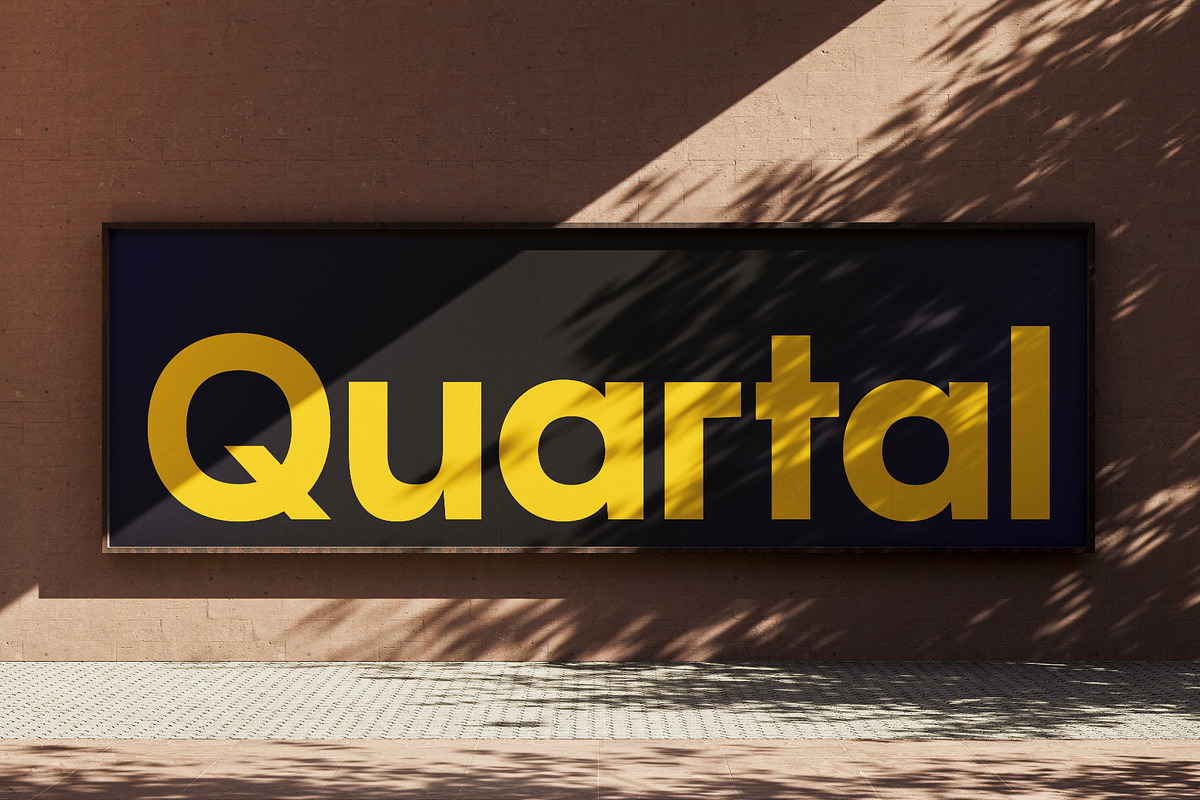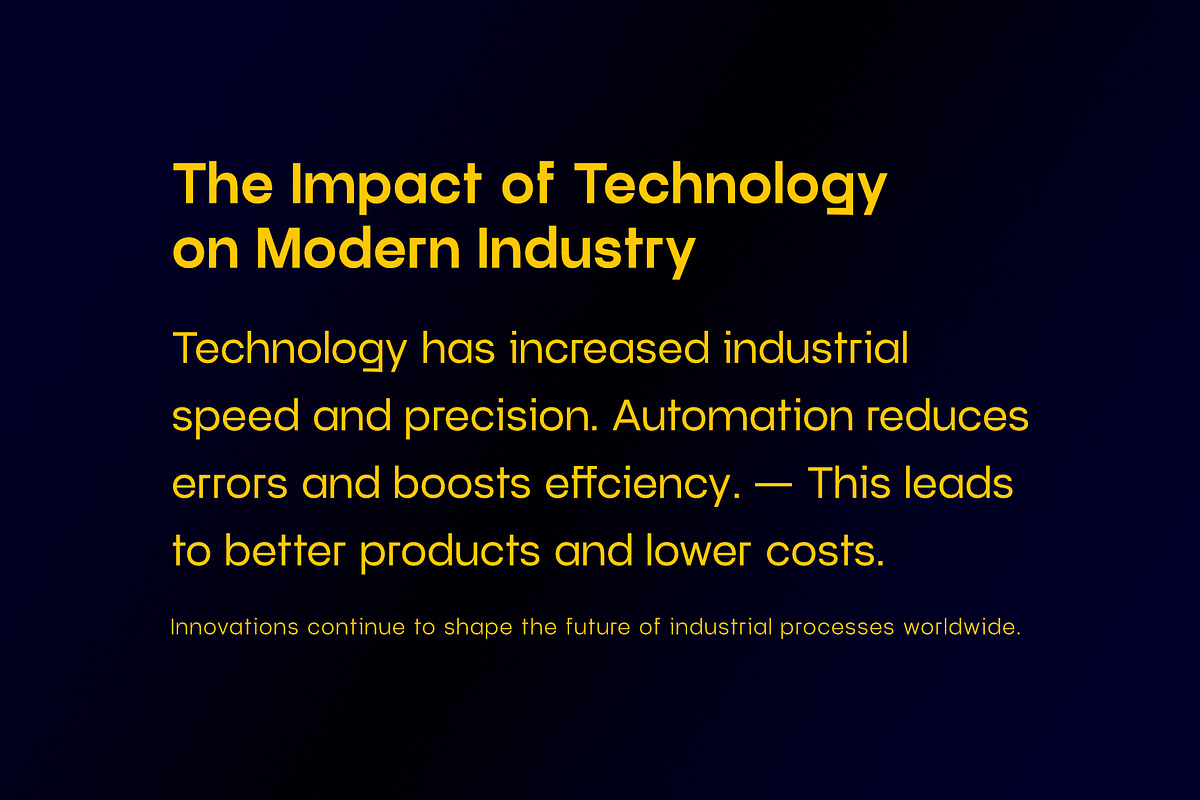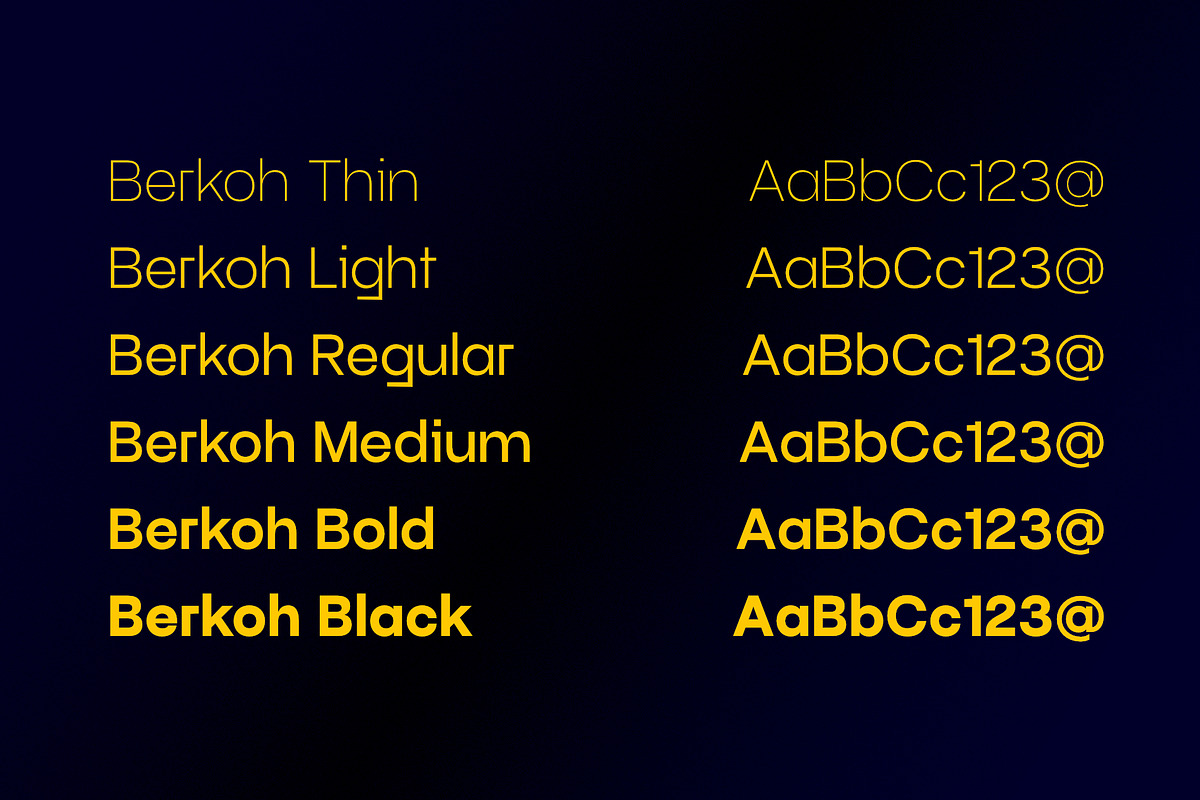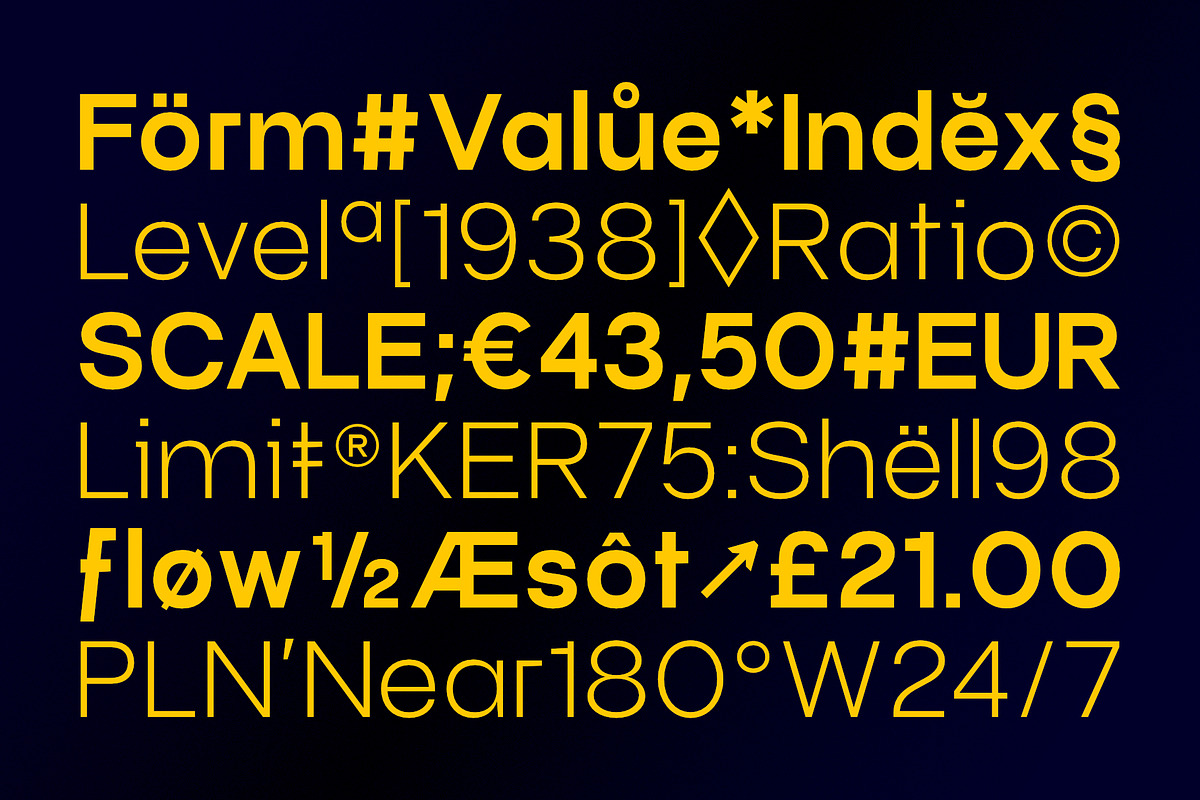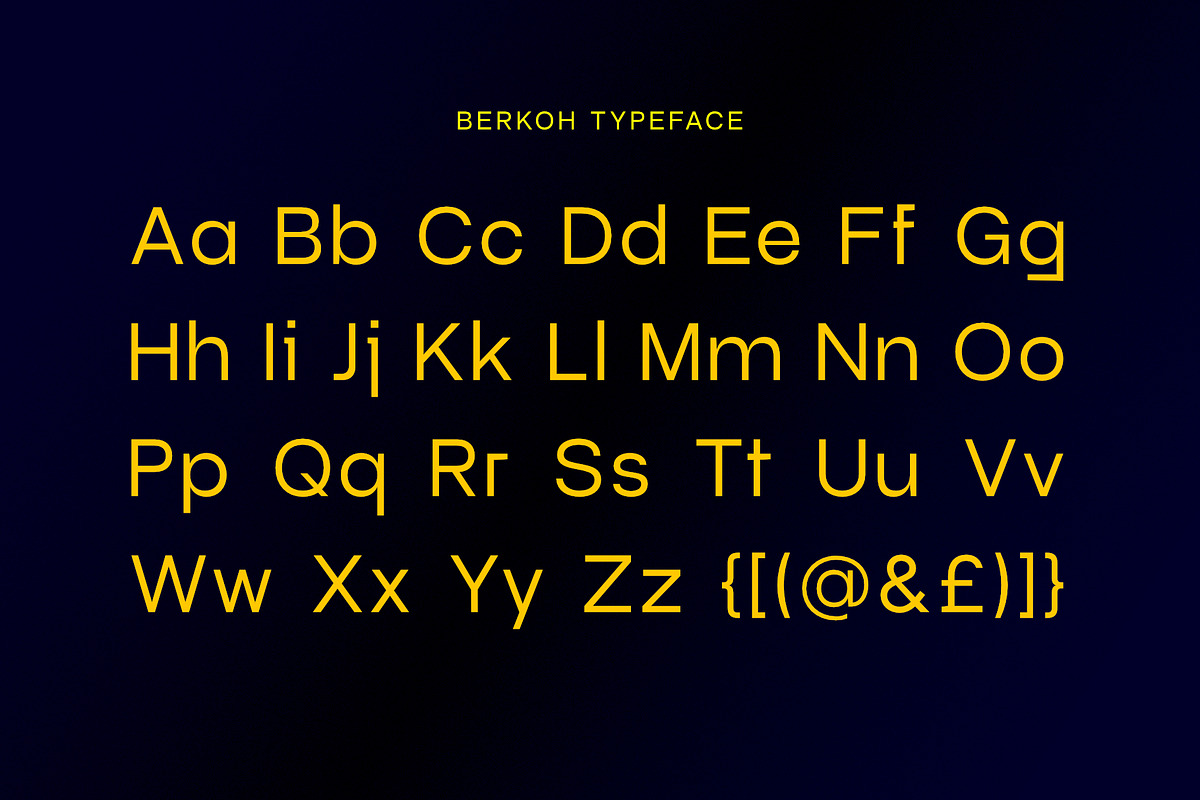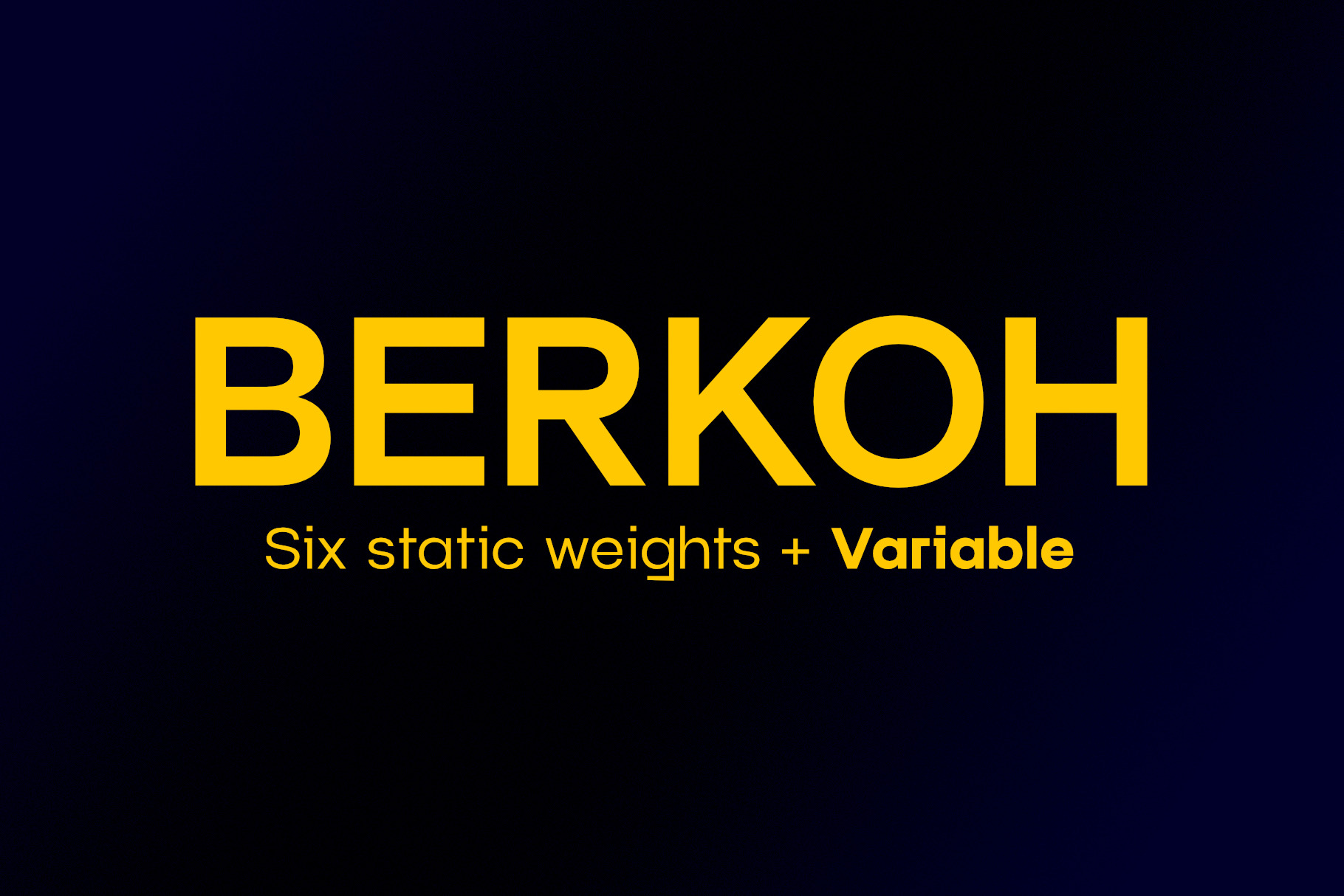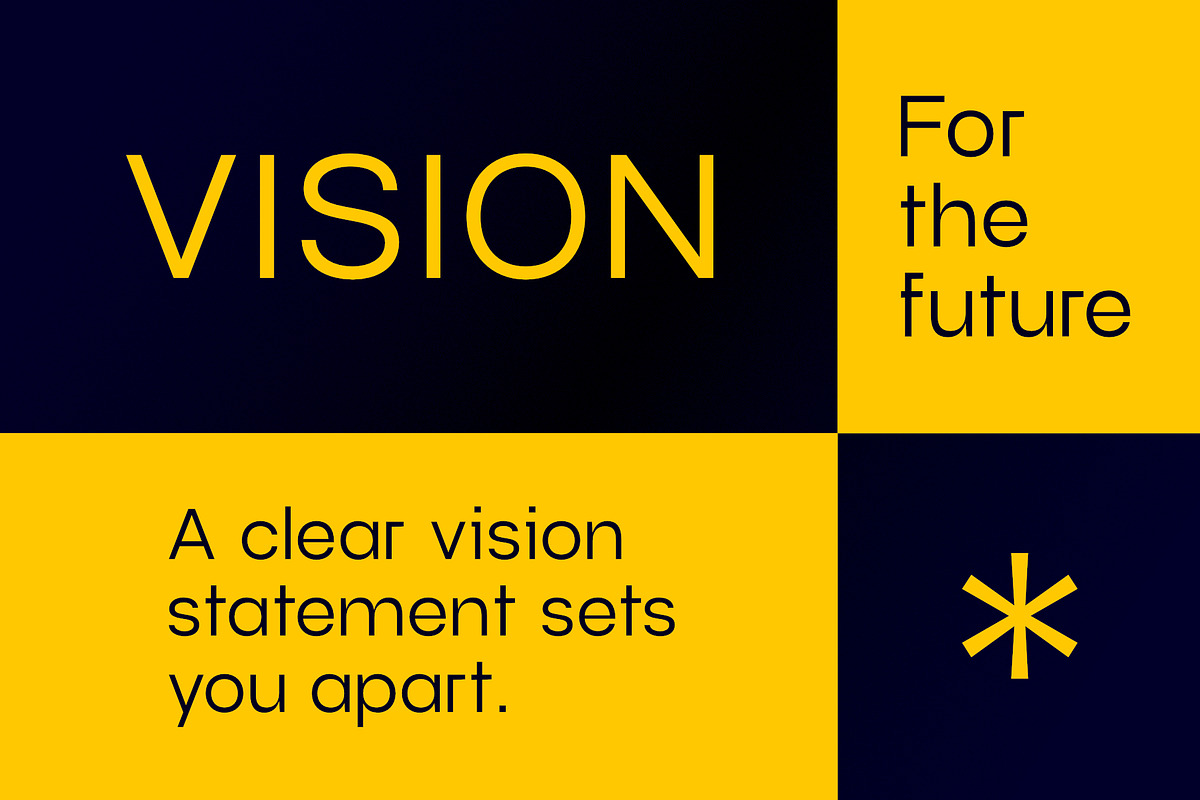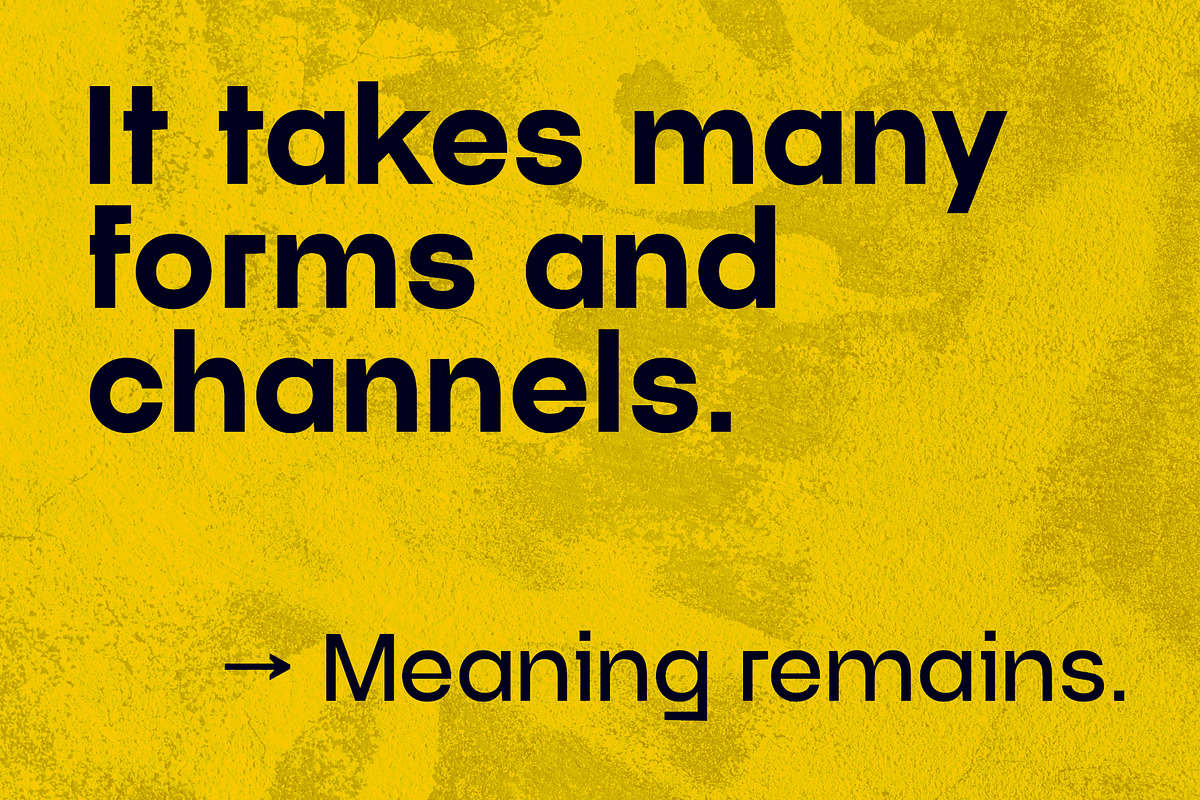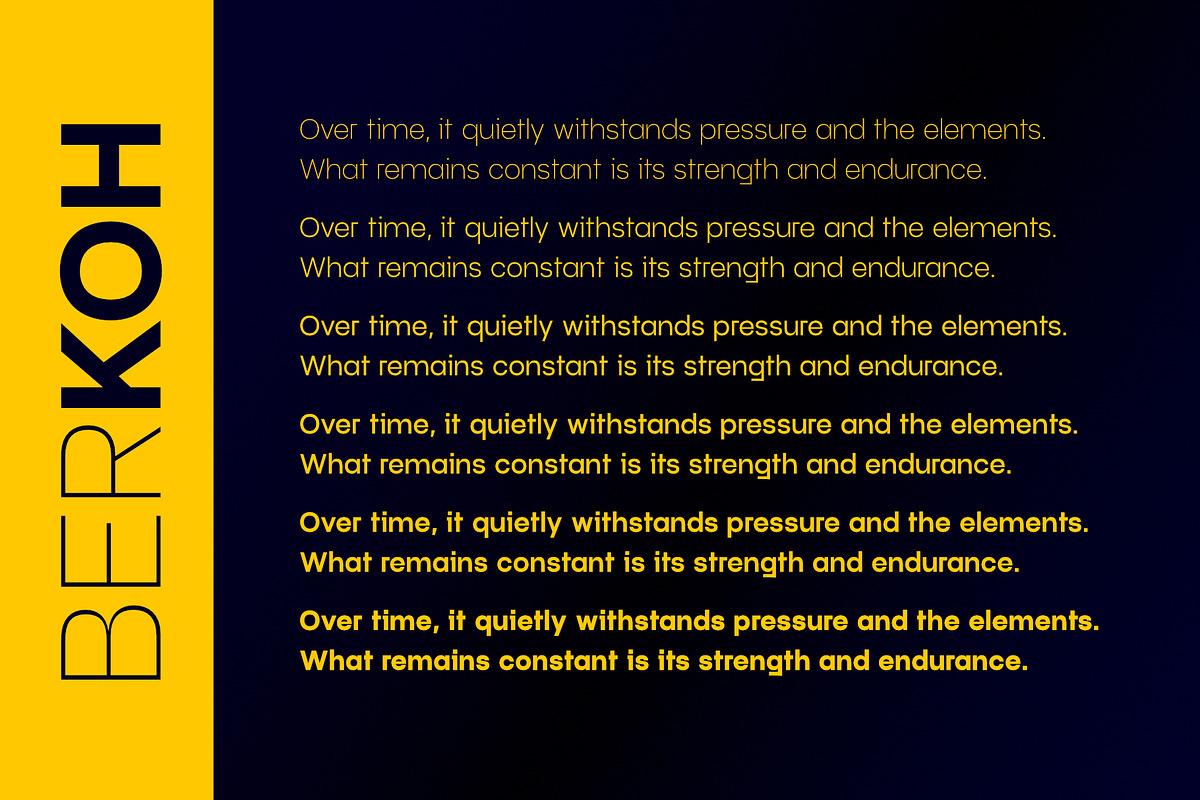
Berkoh | Sans Serif Font Family
Berkoh is a modern geometric sans-serif font family that merges minimalism with character. Designed with clarity and flexibility in mind, Berkoh offers six distinct weights — Thin, Light, Regular, Medium, Bold, and Black — and is now also available as a Variable font, allowing for smooth weight adjustments and greater typographic control.
The family has been significantly expanded with over 500 glyphs, providing broad language support, enhanced typographic versatility, and a rich set of symbols and alternates for professional use.
With its clean lines and elegant curves, Berkoh is perfect for branding, editorial design, user interfaces, and bold headline typography. The font’s unique letterforms — especially in lowercase — add personality without compromising readability.
Whether you're crafting a futuristic tech brand, a visionary startup presentation, or a modern magazine layout, Berkoh helps deliver your message with precision, flexibility, and visual impact.